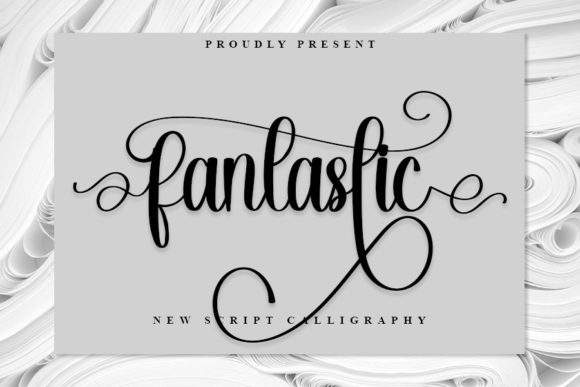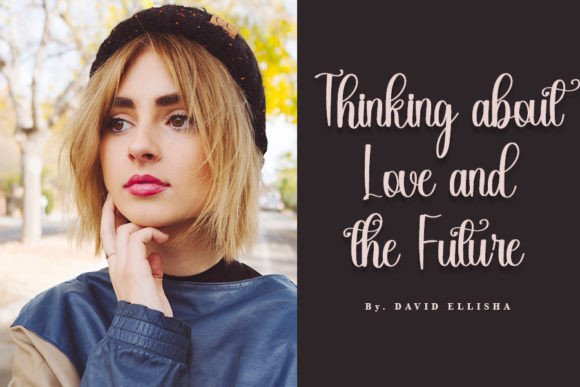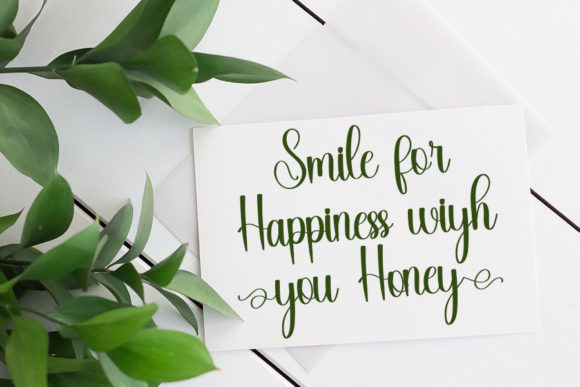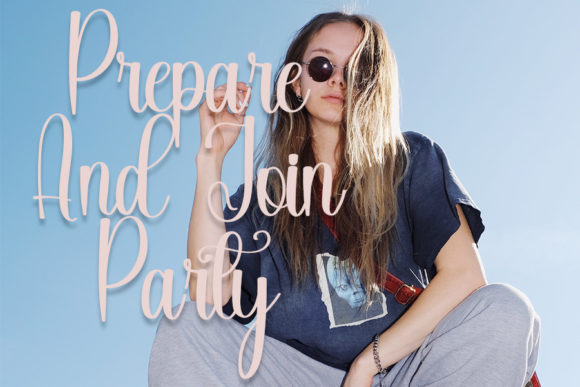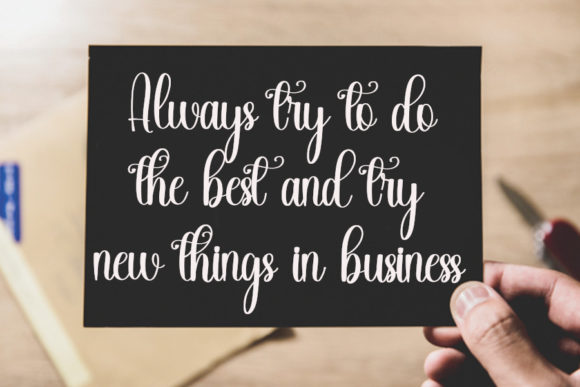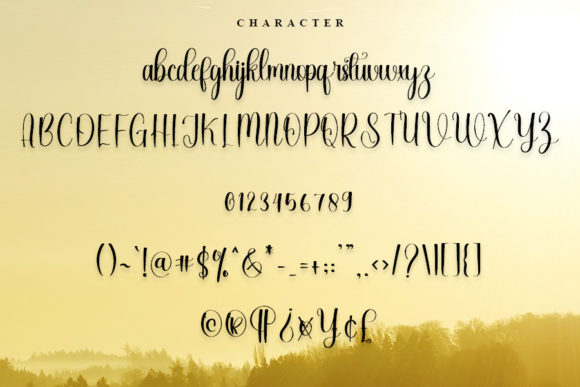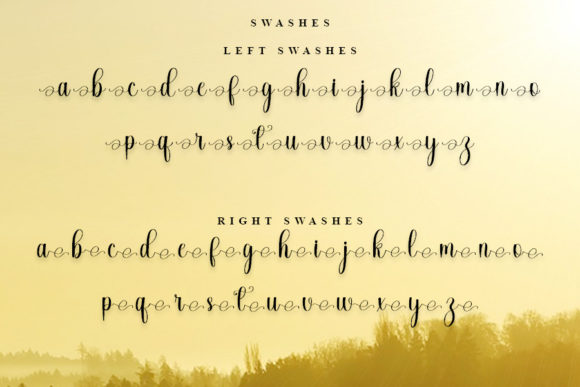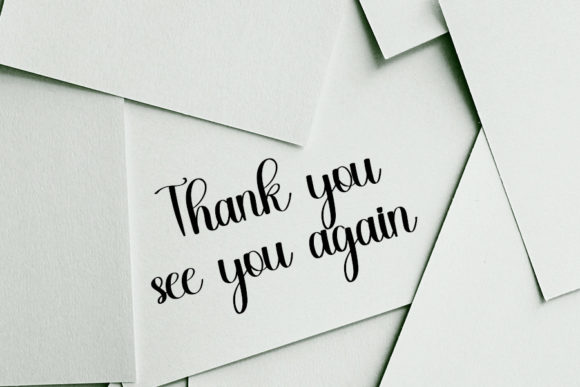
Fantastic Font
About Fantastic Font
Introducing Fantastic, a beautiful and refined script font that exudes class, elegance, and modernity. With its sophisticated appearance, this font is versatile and well-suited for various applications such as logos, branding, invitations, stationery, wedding designs, social media posts, and beyond. Fantastic effortlessly combines a timeless charm with a contemporary touch, making it a standout choice for projects that demand a touch of refinement.
The classy and elegant look of Fantastic makes it a go-to font for those seeking to create a lasting impression. Whether you’re designing a logo that reflects sophistication or crafting wedding invitations that convey a sense of timeless beauty, Fantastic adds a touch of luxury to your creative endeavors.
Fantastic goes beyond being just a font; it’s a creative tool that allows you to access a plethora of amazing glyphs and ligatures, thanks to its PUA encoding. This feature ensures that you can easily customize your text, adding unique and personalized elements to suit the specific requirements of your projects.
Immerse yourself in the versatility of Fantastic as it seamlessly integrates into your design toolkit. Picture it gracing your branding materials, enhancing the elegance of your wedding stationery, or elevating the visual impact of your social media posts. Let Fantastic be the refined script font that transforms your creative vision into a masterpiece.